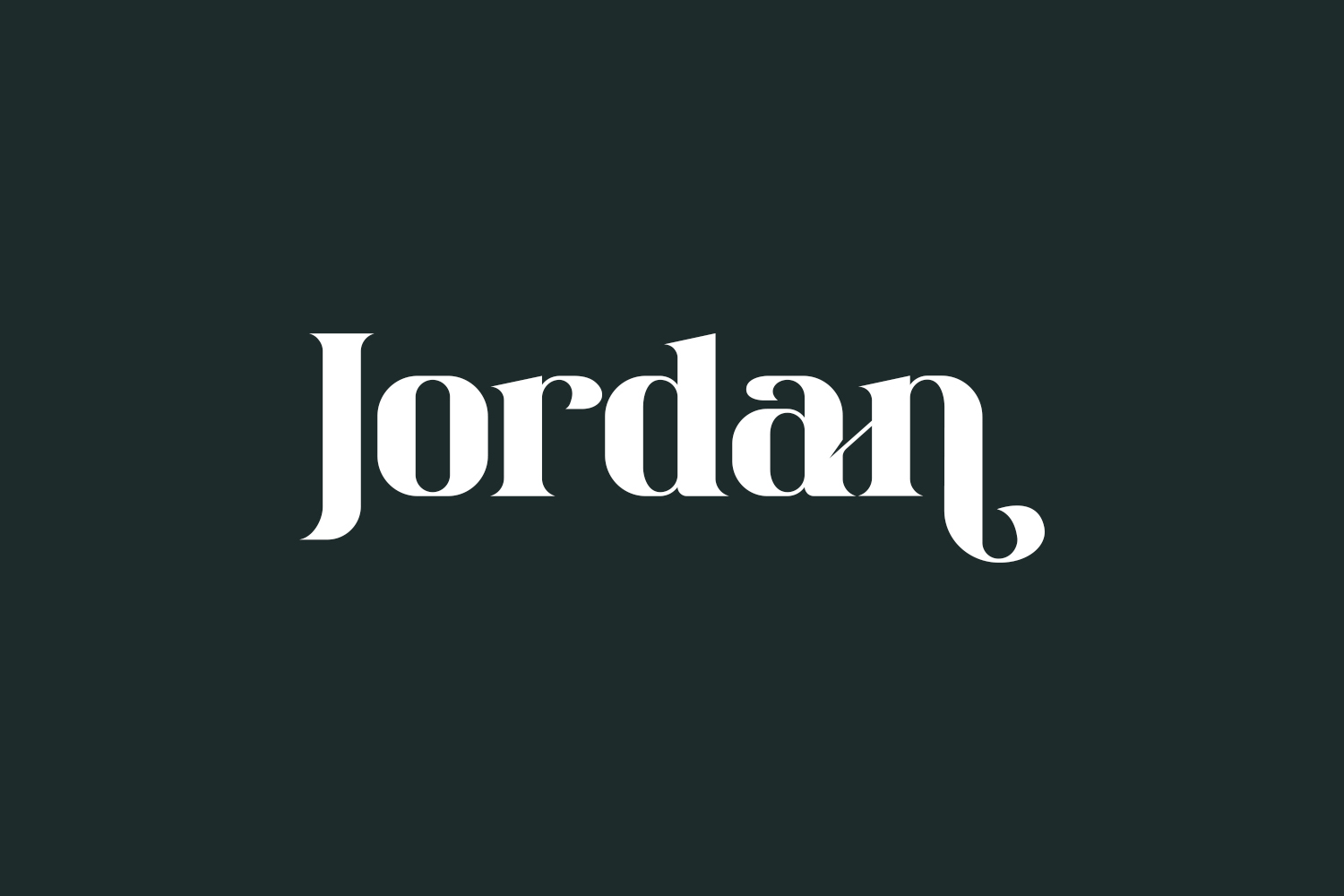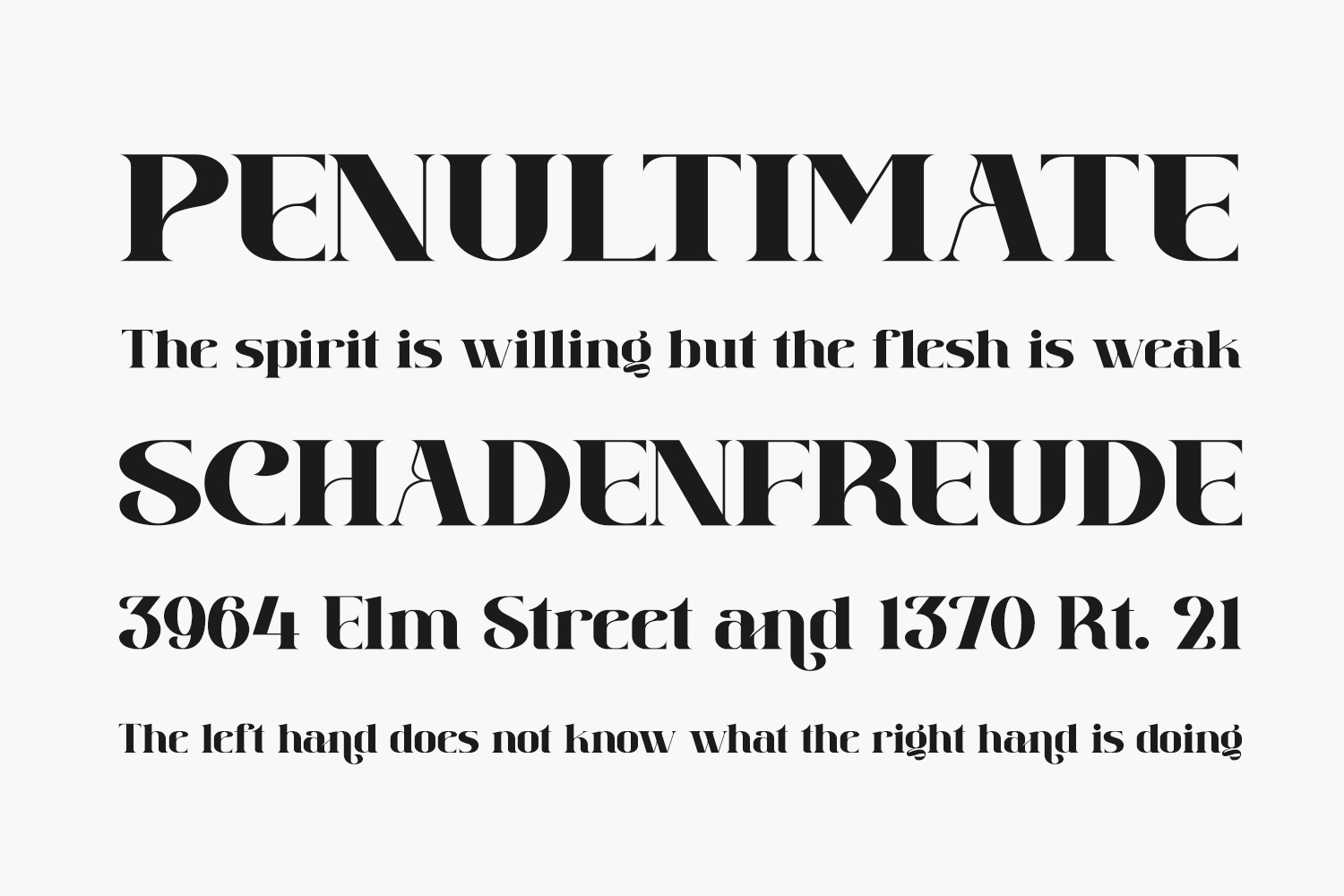
Experience the allure of Jordan Free Font, a stylish and distinct serif font that captures attention with its timeless elegance. This typeface exudes sophistication and offers a touch of luxury to any design project.
Jordan is the ideal choice for creating elegant and luxurious logos, designing captivating book or movie titles, establishing a strong visual identity for fashion brands, publishing eye-catching magazines, showcasing stylish clothes, exploring expressive lettering and quotes, and a plethora of other creative endeavors. Jordan Free Font is free for personal or commercial use.